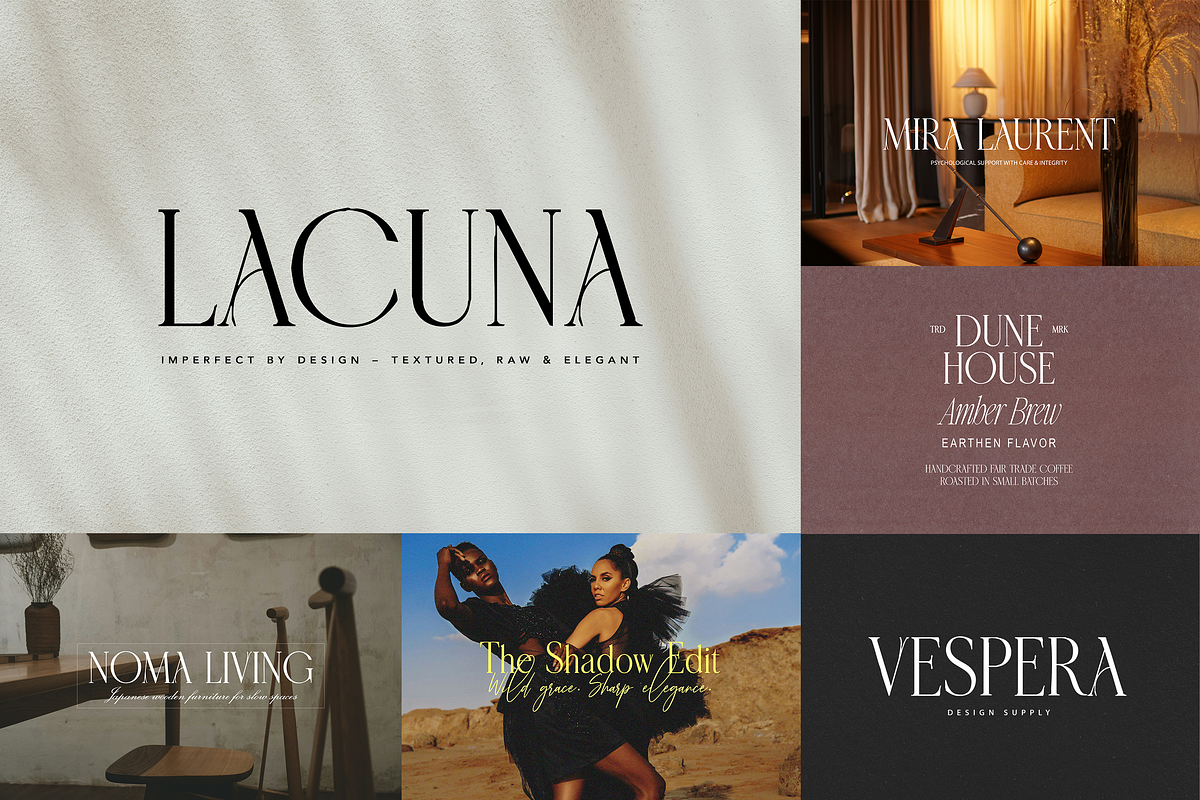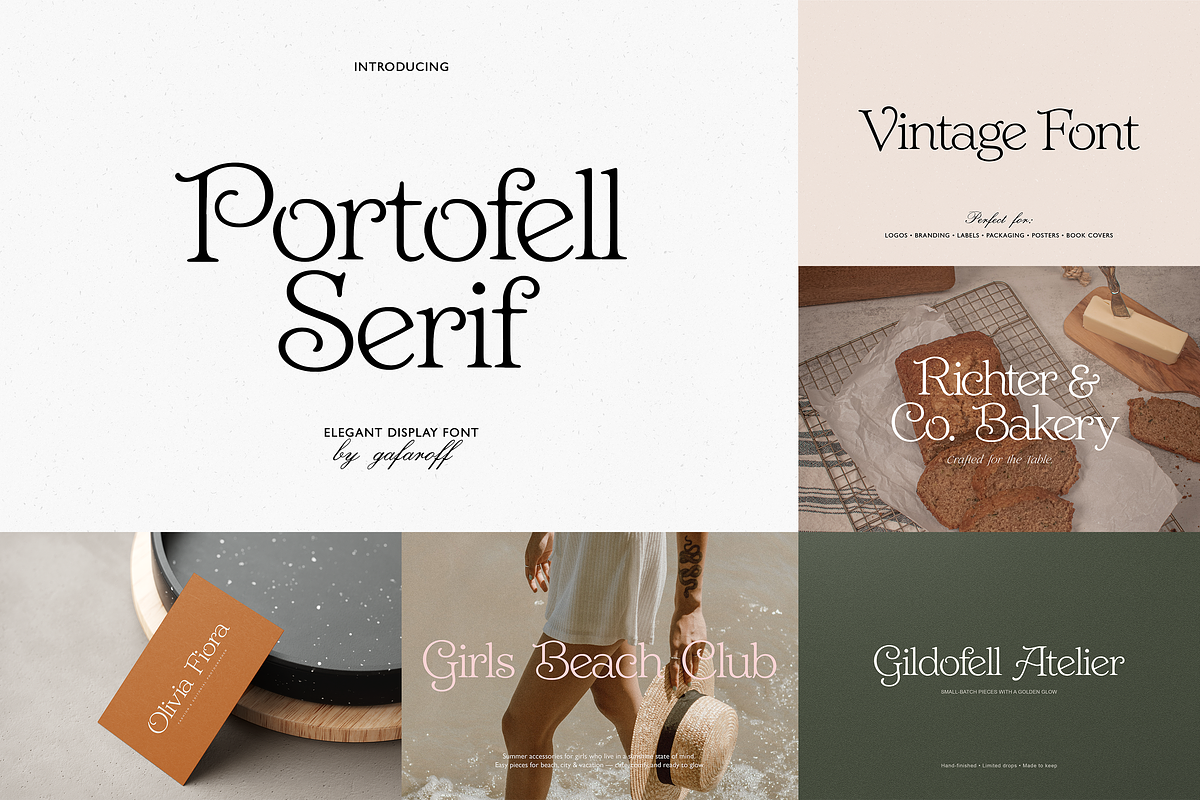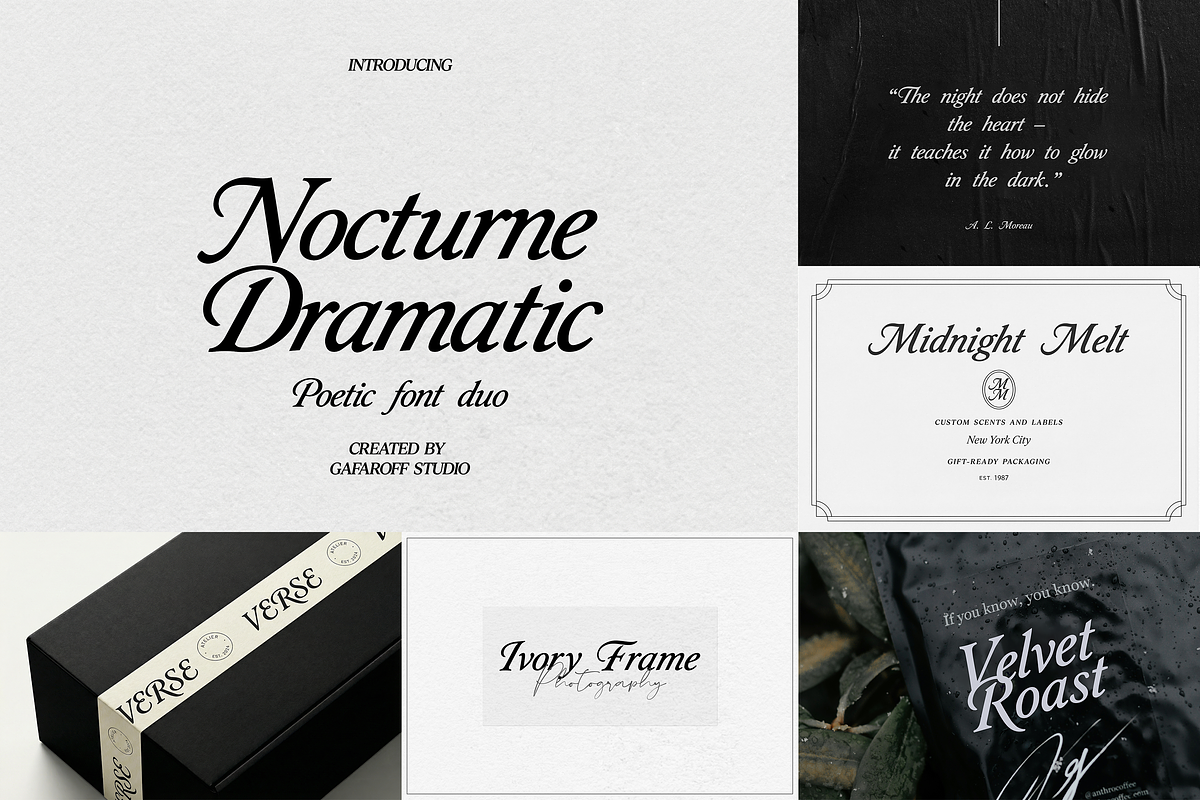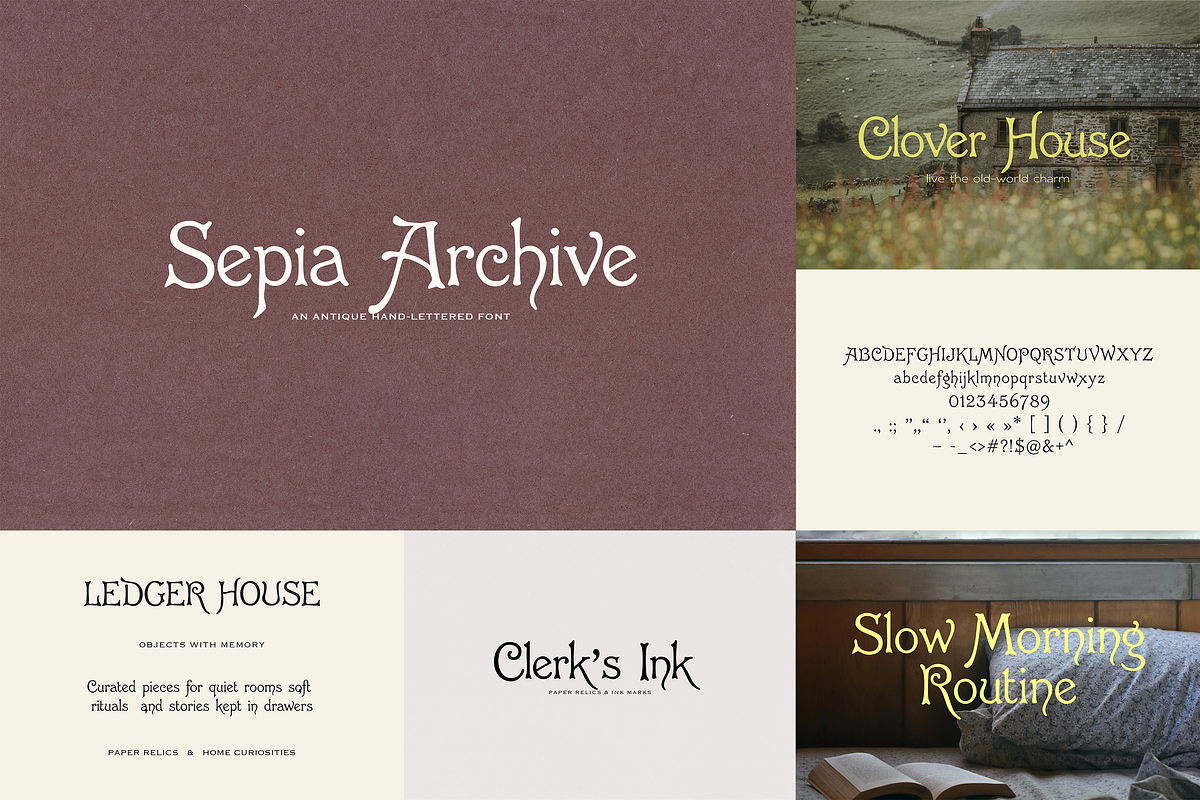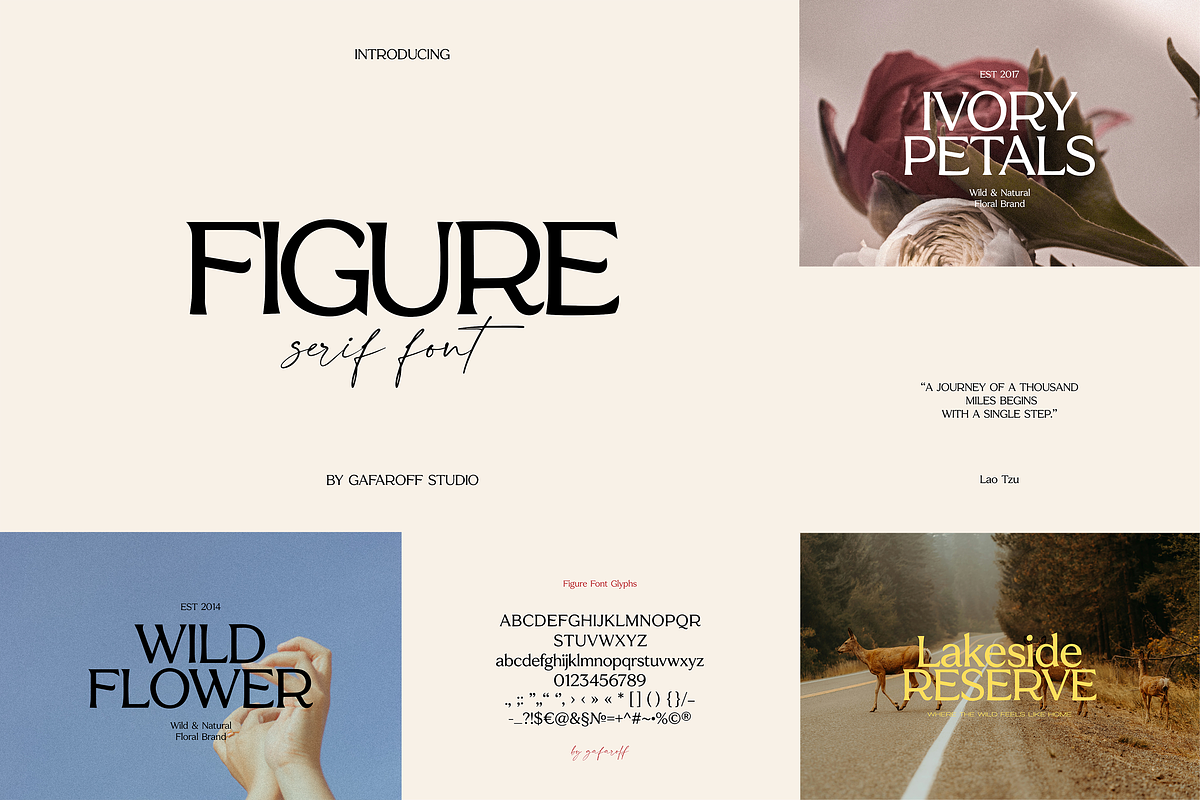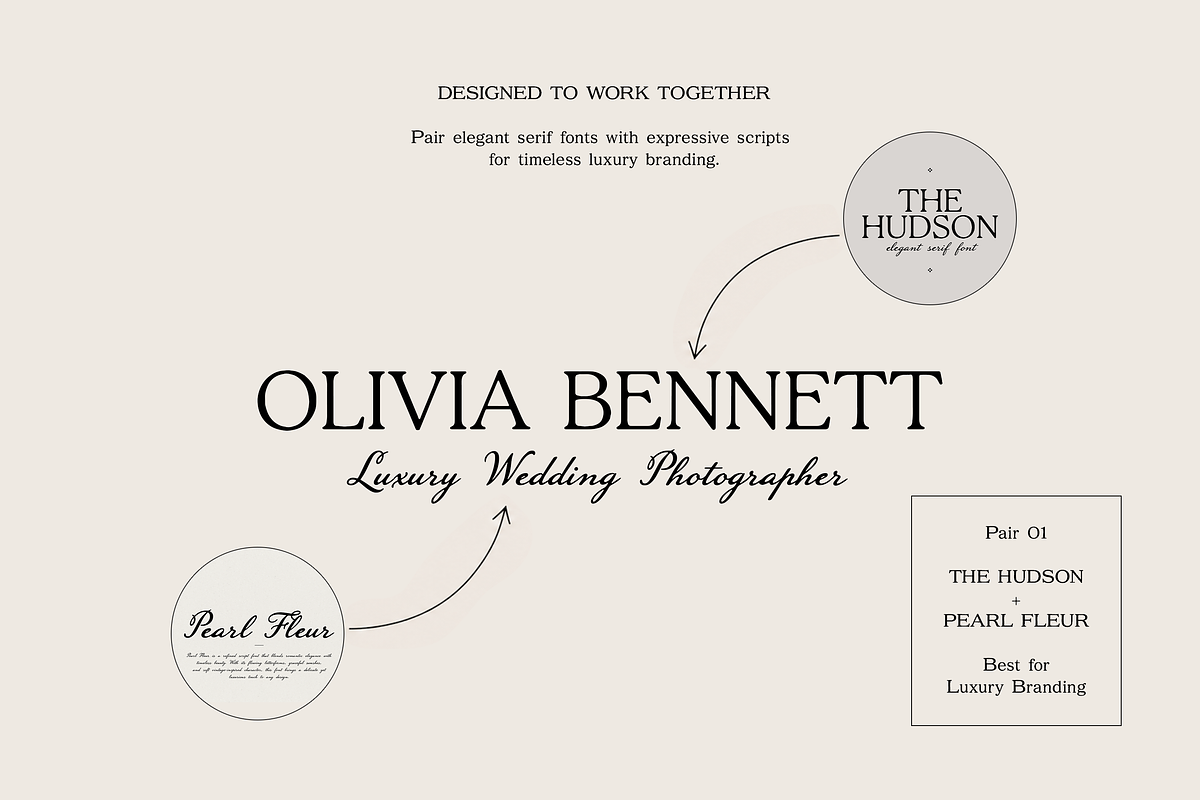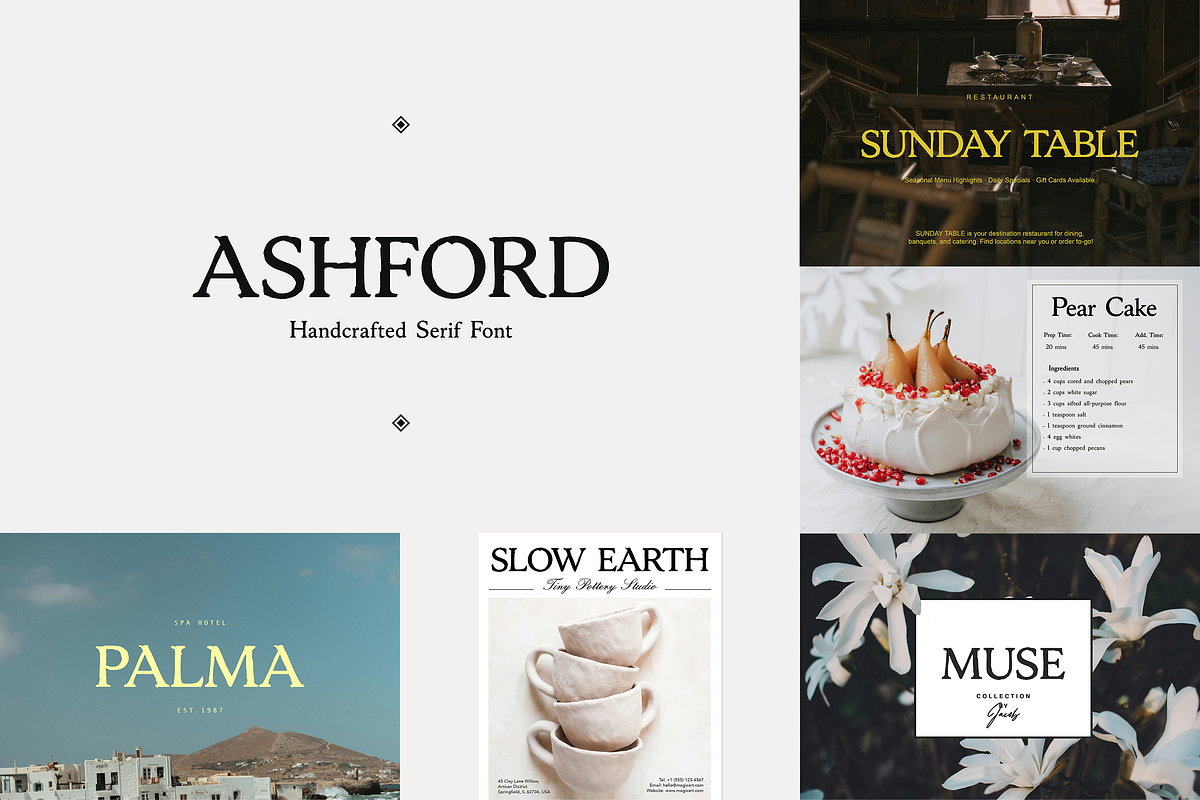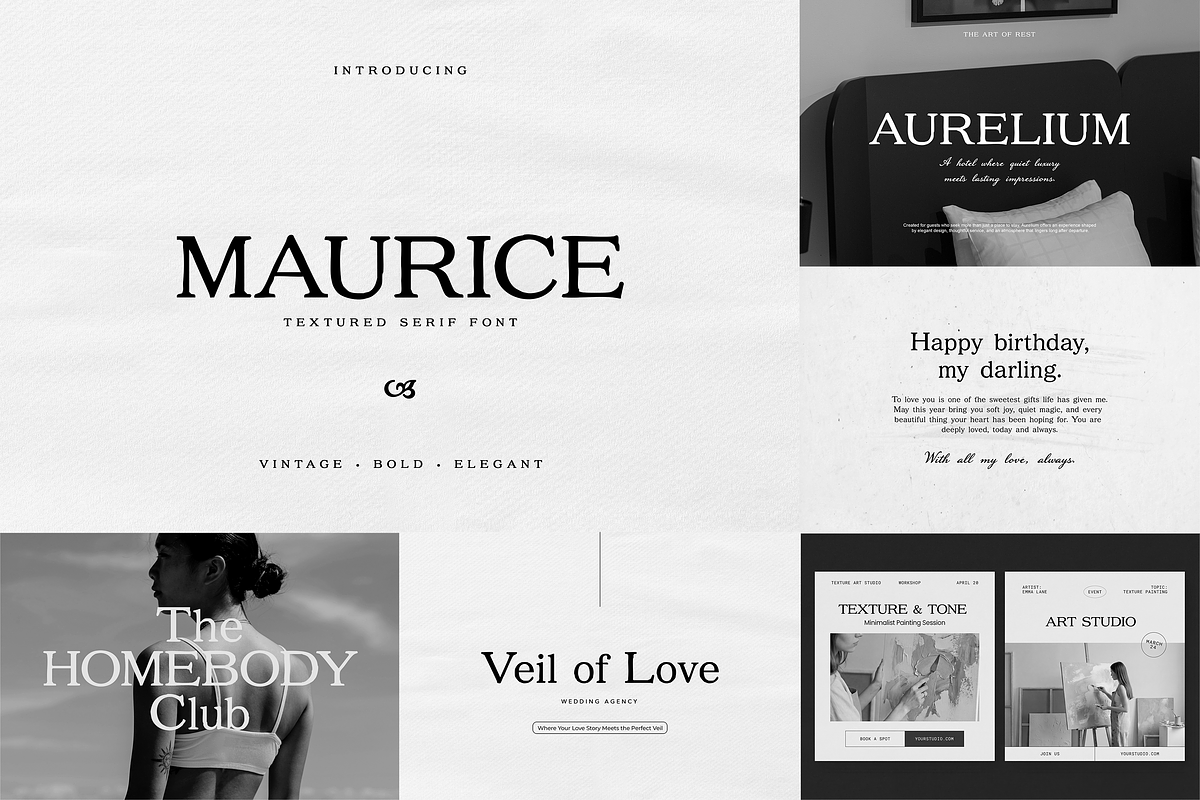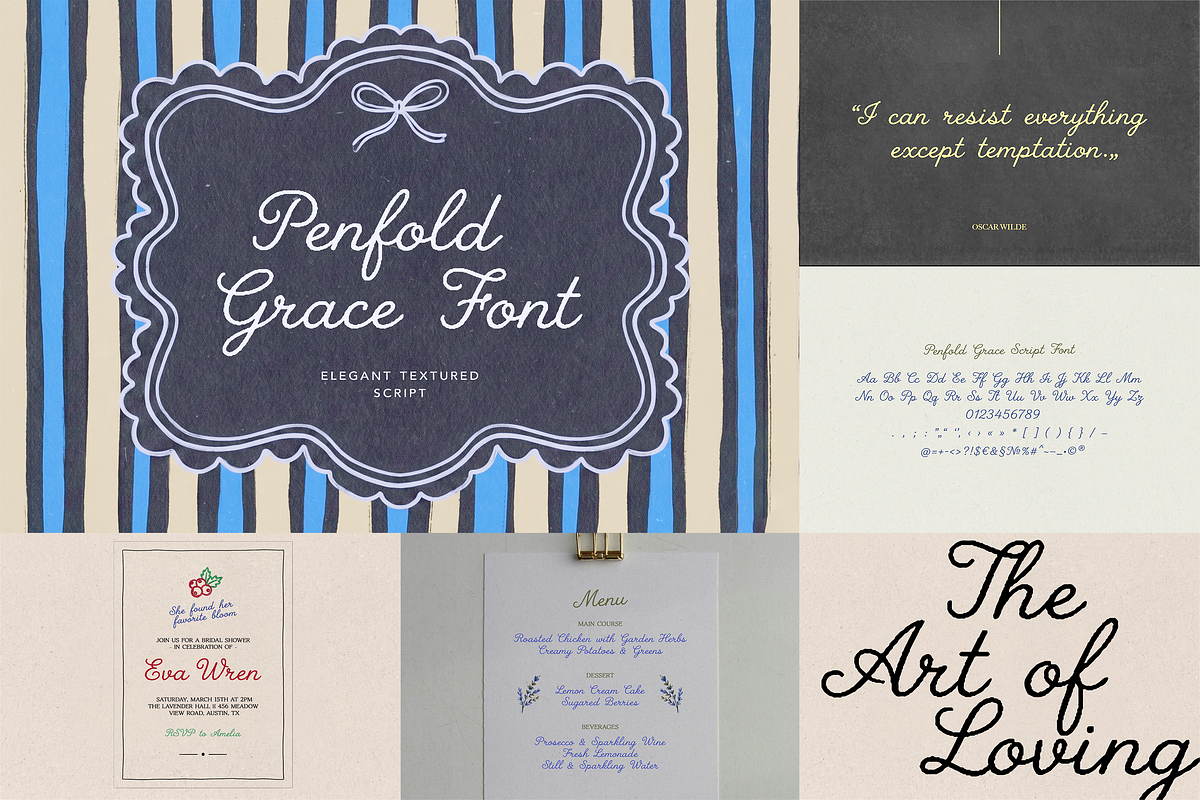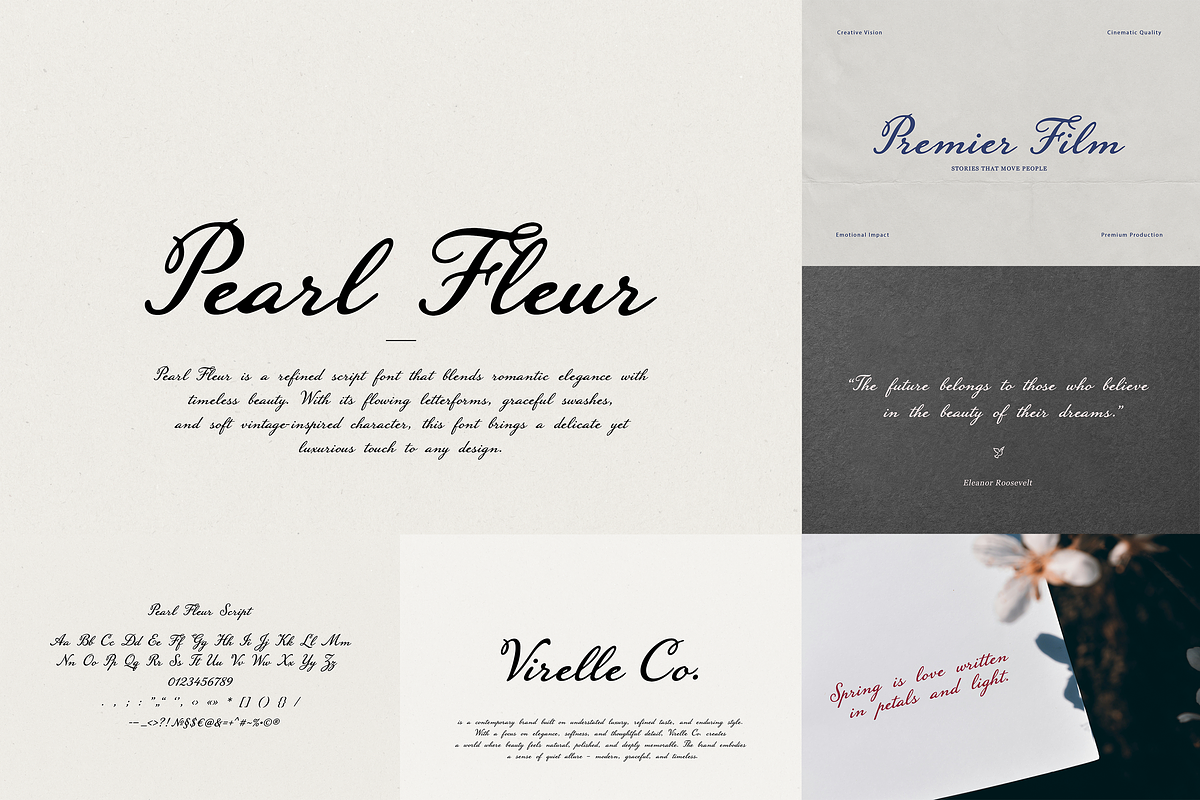
Old Money Luxury Font Collection
Create timeless, sophisticated designs with Old Money, a curated collection of 15 premium font products inspired by quiet luxury, European heritage, vintage editorials, and classic typography.
This versatile collection combines elegant serif fonts, expressive scripts, refined display typefaces, and perfectly matched font duos. Each font has its own distinctive personality while working beautifully with the rest of the collection.
• Luxury branding and logo design • Fashion and beauty editorials • Premium packaging and product labels • Wedding invitations and stationery • Magazines and book covers • Boutique and hospitality branding • Websites and social media • Posters, menus, and printed materials
• The Hudson • Maurice • Marlowe • Ashford • Figure • Hawthorne • Portofell Serif • Lacuna • European Farmhouse — Font Duo • Rosevale • Pearl Fleur • Penfold Grace • Nocturne Dramatic — Font Duo • Old Press Condensed • Sepia Archive
Every font in this collection is an original design created by Gafaroff Studio. The typefaces were carefully selected to complement one another and make sophisticated font pairing effortless.
From refined editorial typography to romantic scripts and dramatic display serifs, this collection gives you everything you need to create a cohesive, high-end visual identity.